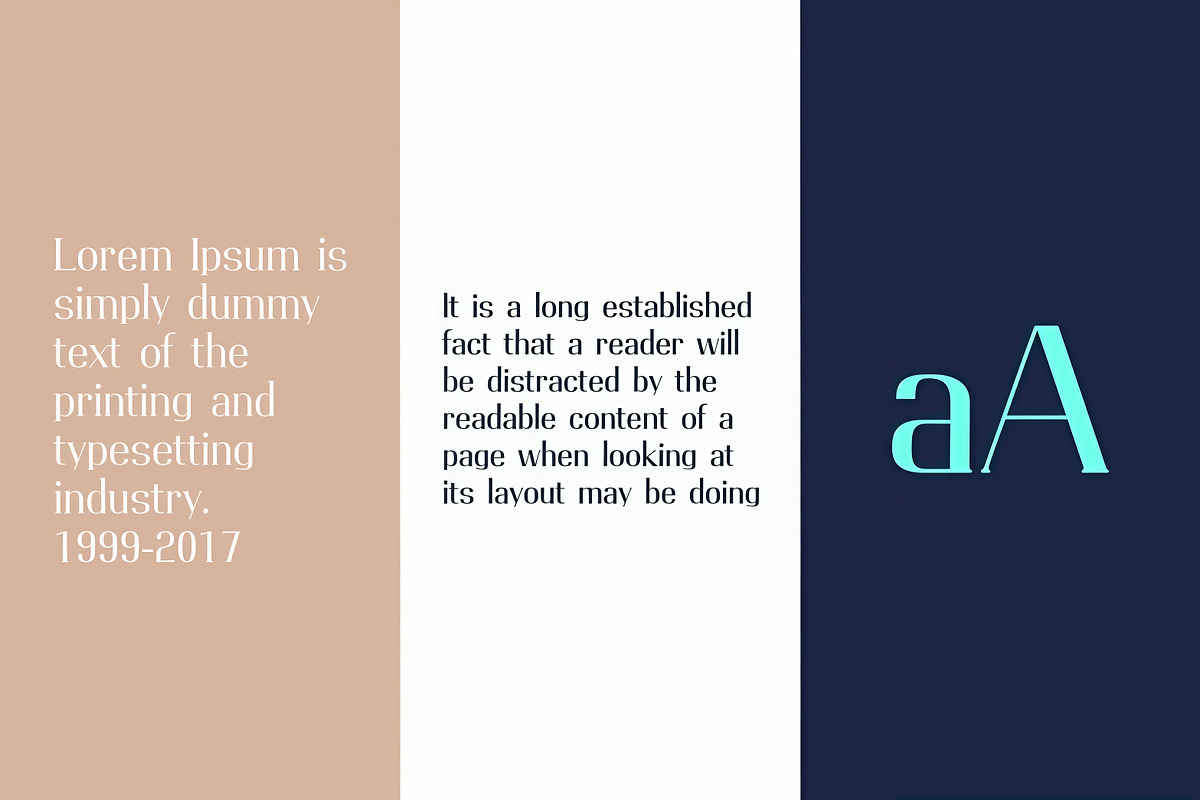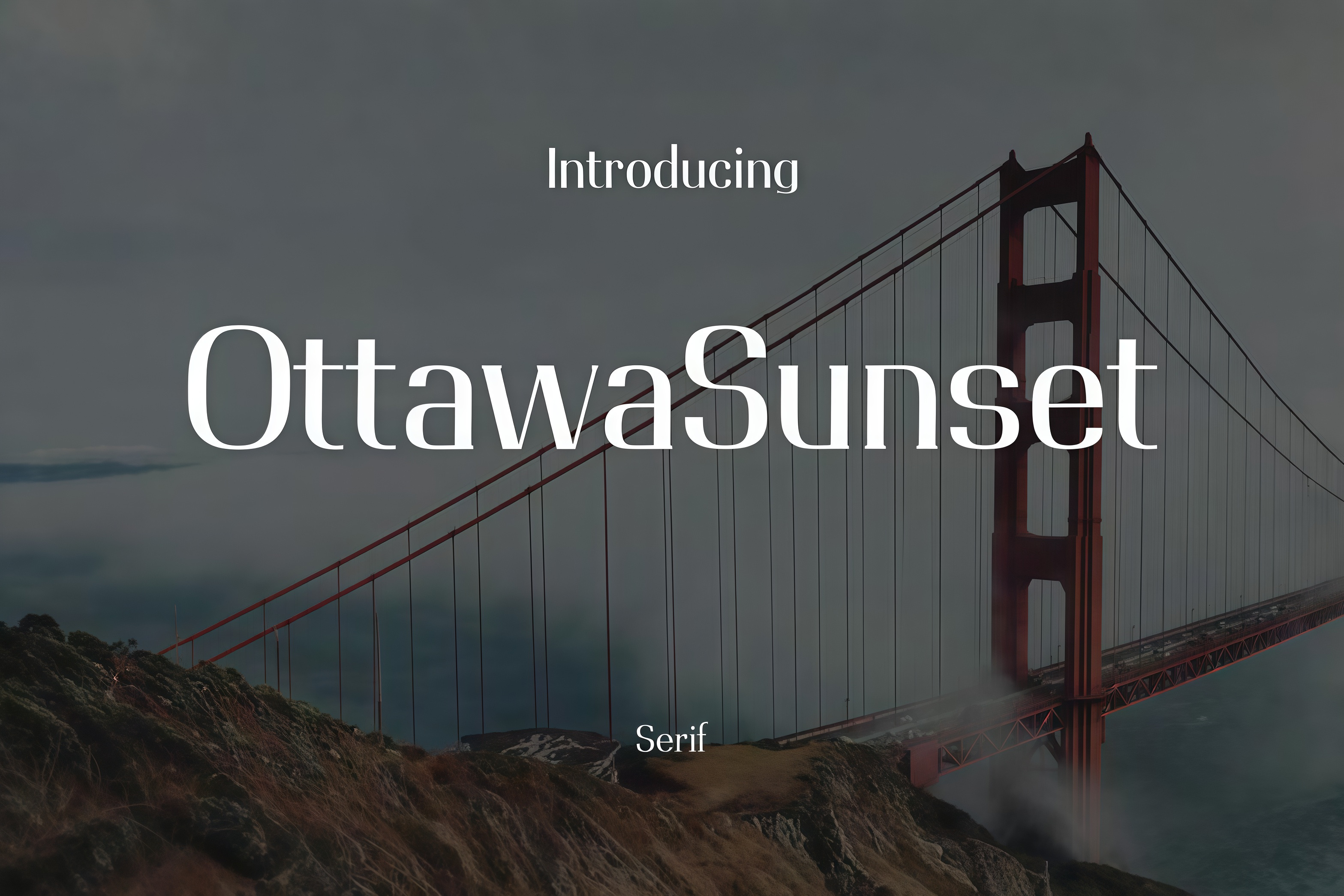
Ottawa Sunset Slab Serif Font
✨ Ottawa Sunset Serif Font – Modern & Display Typeface
Elevate your projects with Ottawa Sunset Serif Font, a modern and vintage display typeface designed for headlines, titles, logos, and short text blocks. This stylish and versatile font is perfect for branding, advertising campaigns, social media graphics, Instagram quotes, T-shirt designs, website headers, modern layouts, vintage-style projects, packaging, invitations, editorial designs, and professional marketing materials.
Whether you are working on fashion branding, digital marketing, lifestyle blogs, wedding stationery, or luxury packaging, Ottawa Sunset Serif Font adds sophistication, elegance, and readability to every design.
- Complete Character Set: Uppercase, lowercase, numerals, punctuation, symbols, and functional glyphs
- Multilingual Support: Includes accented characters for global projects
- Professional & Elegant: Ideal for print, web, and social media design
- Versatile Use: Perfect for logos, branding, headers, packaging, invitations, quotes, editorial layouts, and more